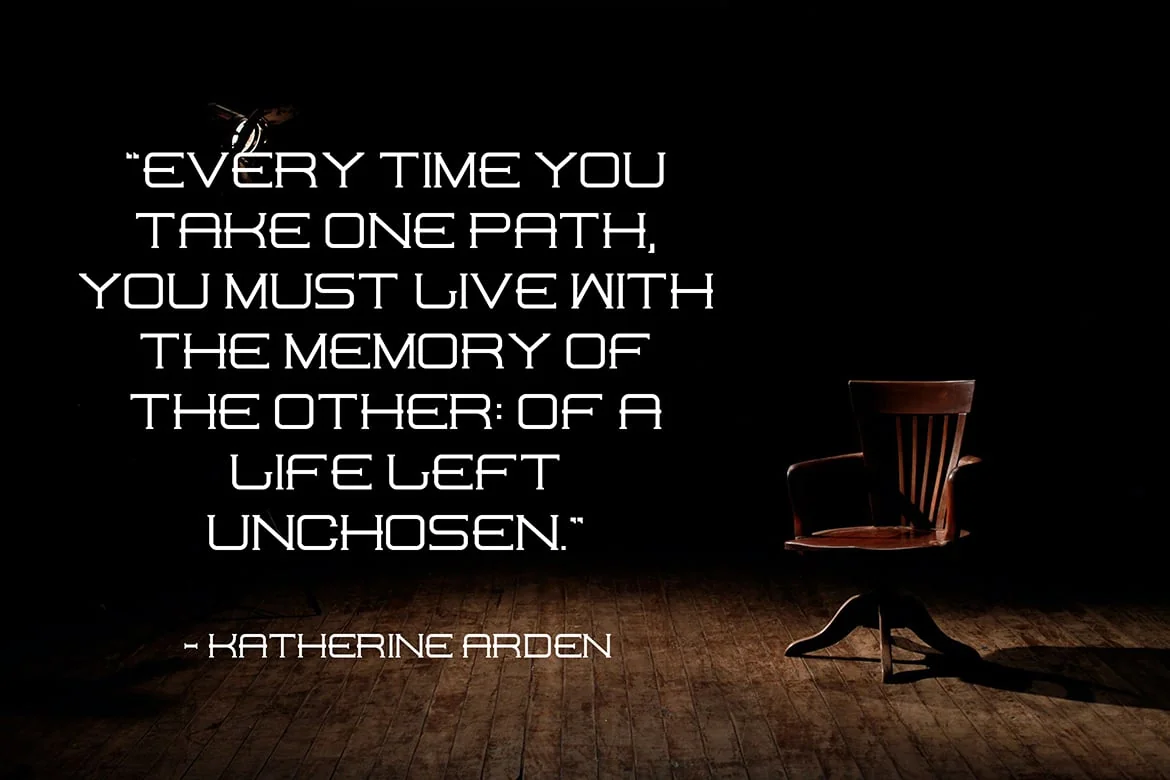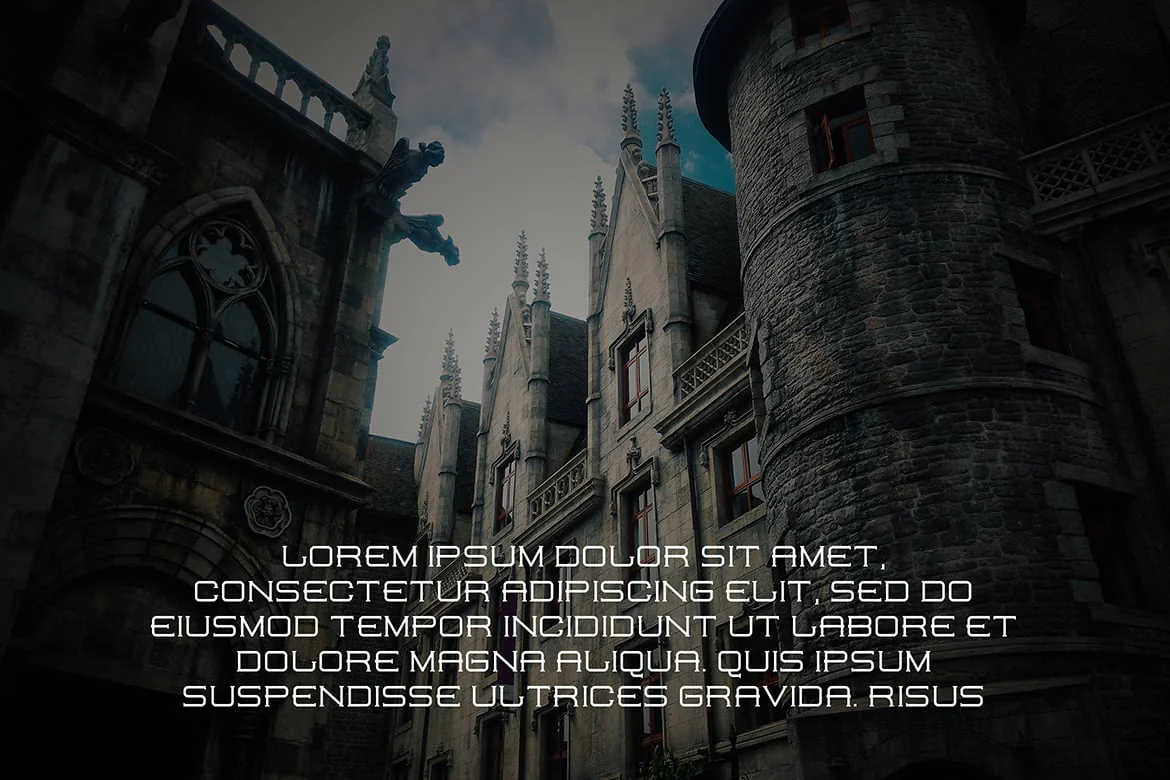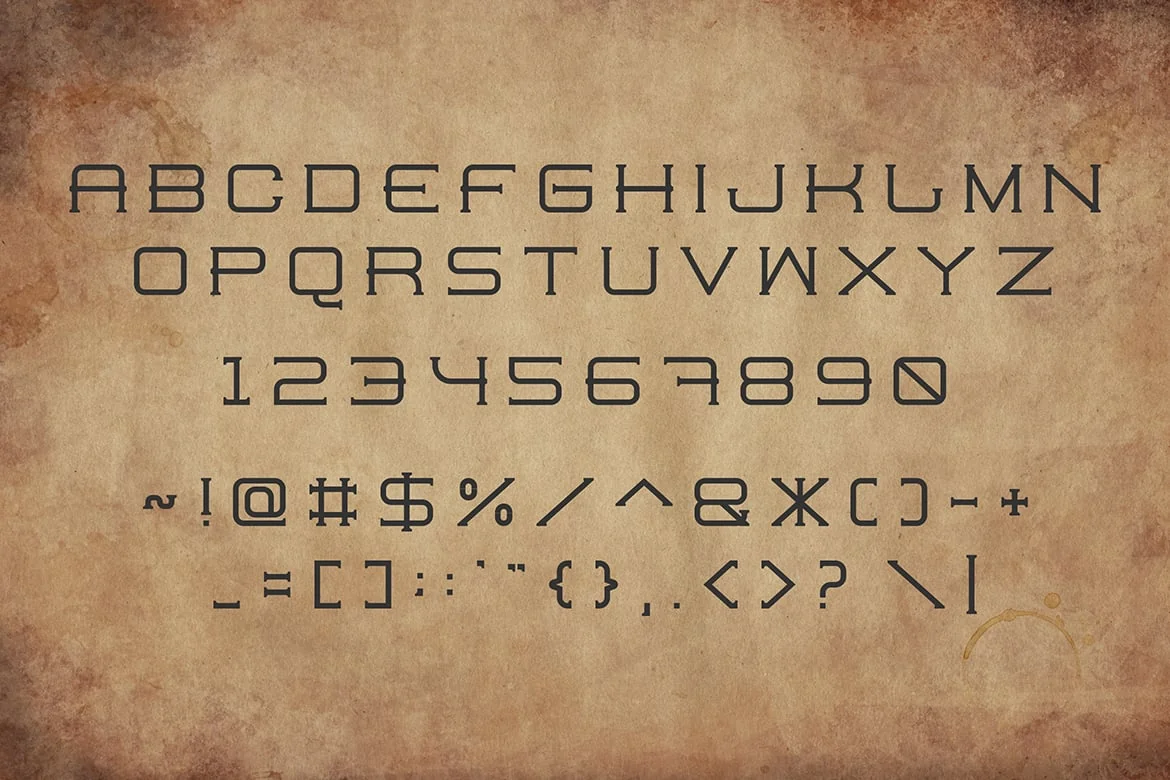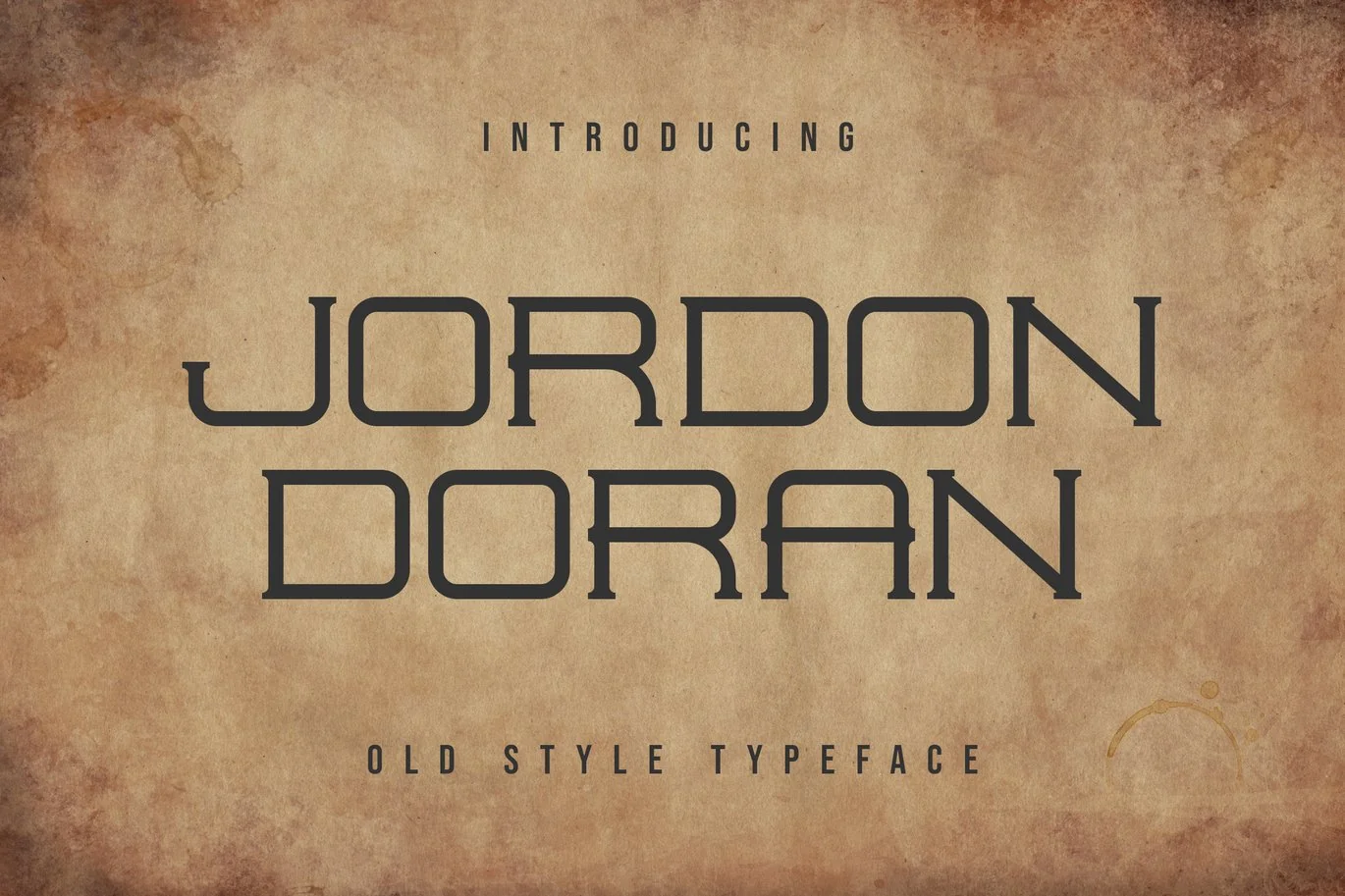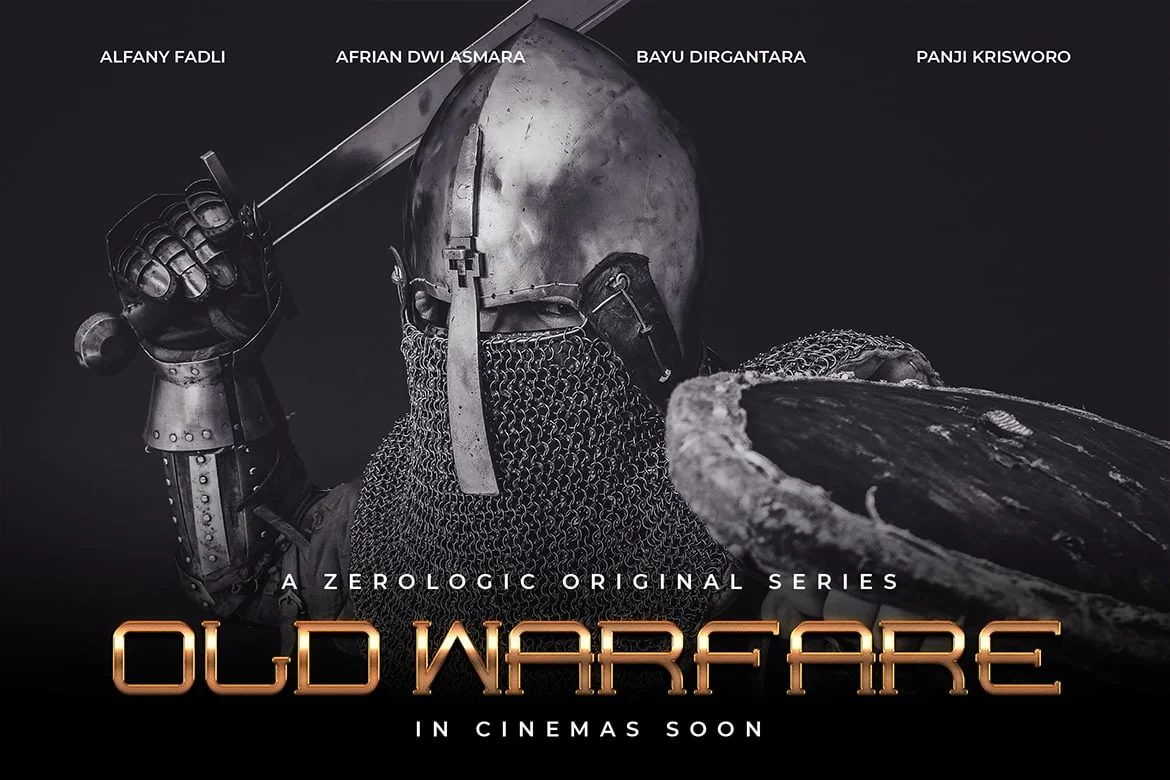
Jordon Doran Old Style Typeface
Jordon Doran  is a serif font that we designed with original touch  for your needs.
This cool font is complete with Uppercase, Lowercase, Numeric & symbols. This very strong and sharp font is perfect
for titles, typography, posters, magazines, brochures, packaging, Websites and much more for your design needs, making your designs more cool.